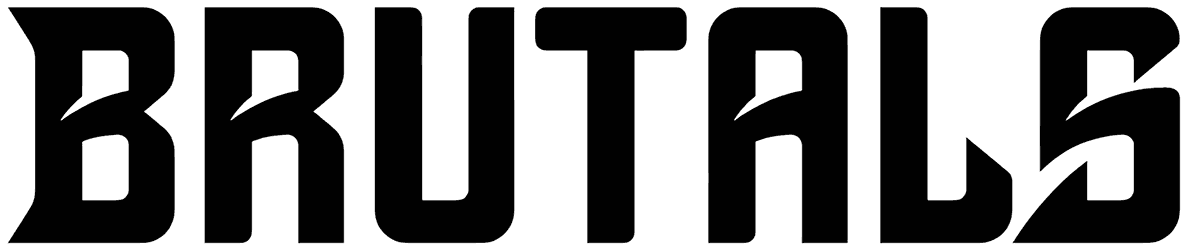
Brutals Font
Brutals is purely perfect for any kind of creative purpose ranging from posters, social media posts, editorial projects, or magazines, to flyers. The good news about this all-caps esports font is that it comes with two distinctive styles and widens your selection range. Due to its tilted and crooked characters, it can establish a sense of dynamic, classic, vintage, and drama in your artwork.